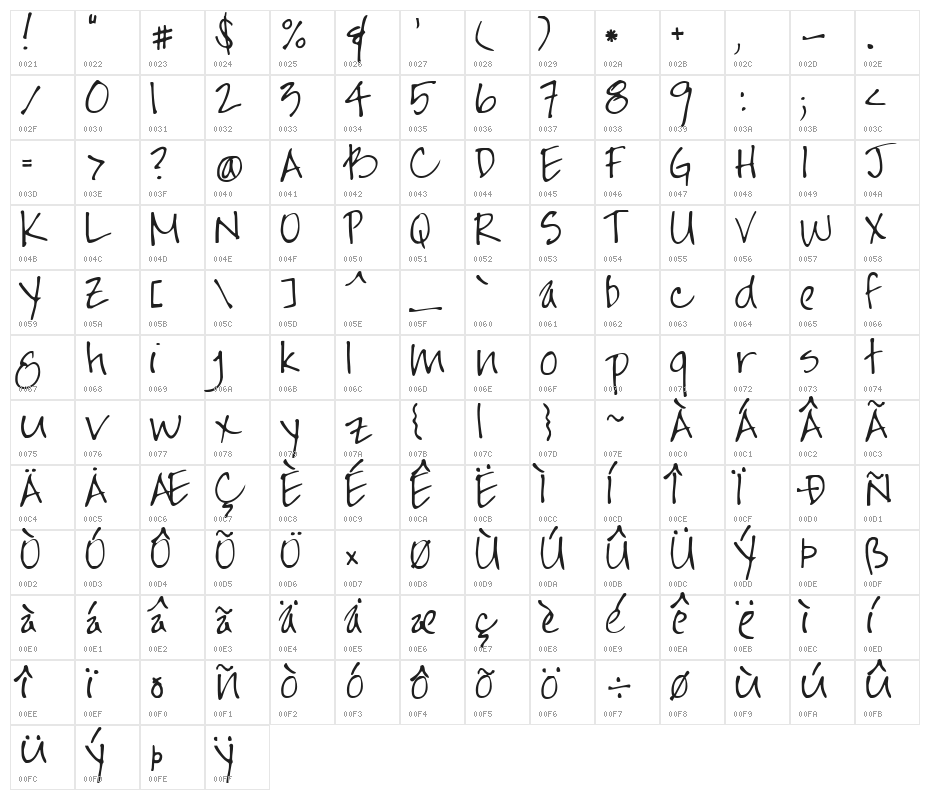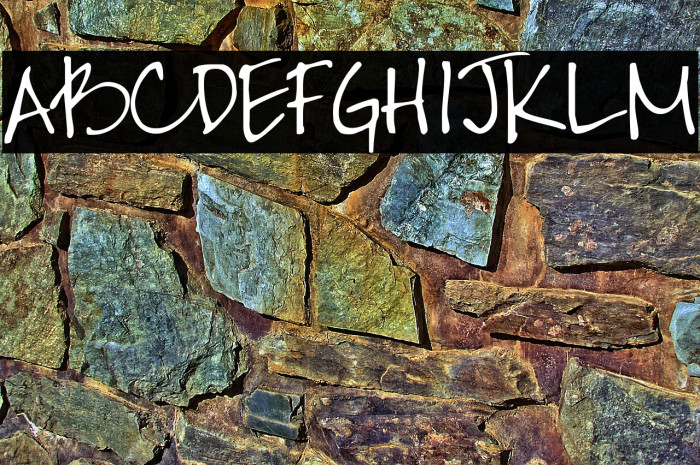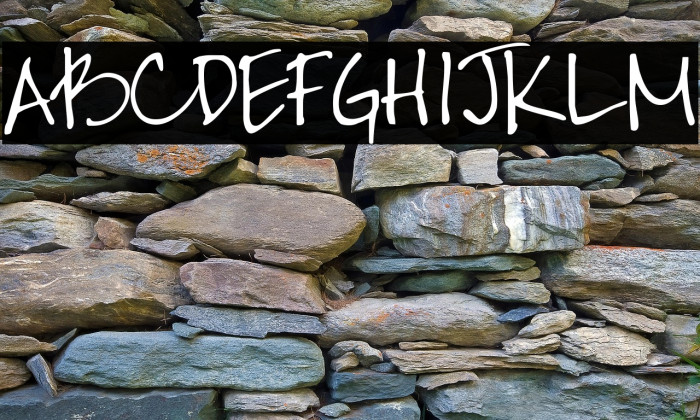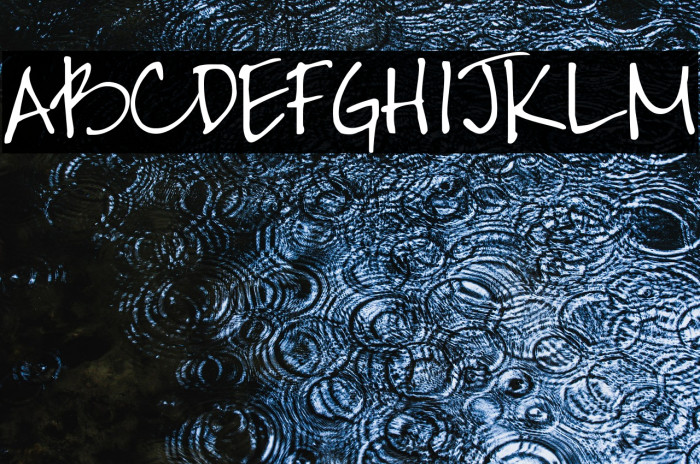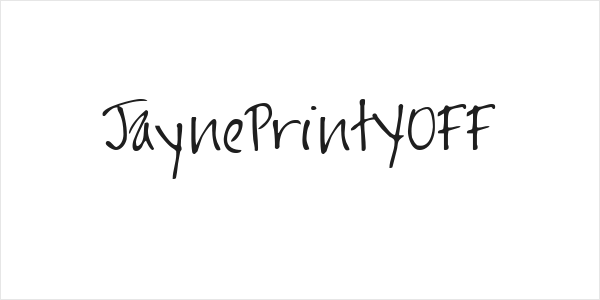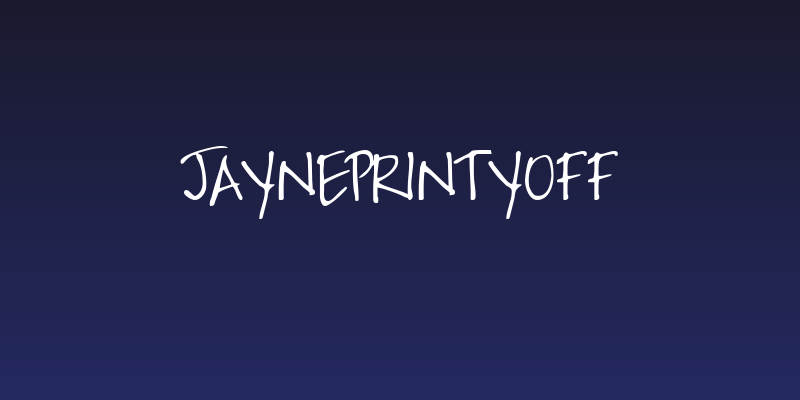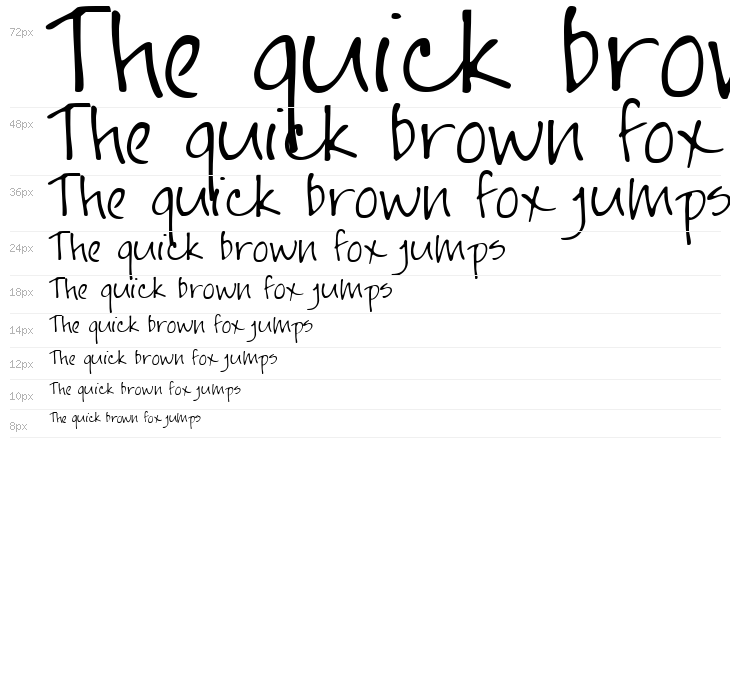
This font exudes a casual, handwritten style with a playful and informal appearance. The characters are slightly irregular, giving it a personal touch reminiscent of natural handwriting. The uppercase letters are bold and prominent, while the lowercase letters maintain a consistent flow, enhancing readability. Numbers are distinct and clear, matching the overall style. Special characters are creatively designed, adding to the font's charm. This font is perfect for projects that require a personal, friendly, and approachable feel.
| Proposed Projects | Ideal for greeting cards, personal notes, informal invitations, and creative projects that require a personal touch. |